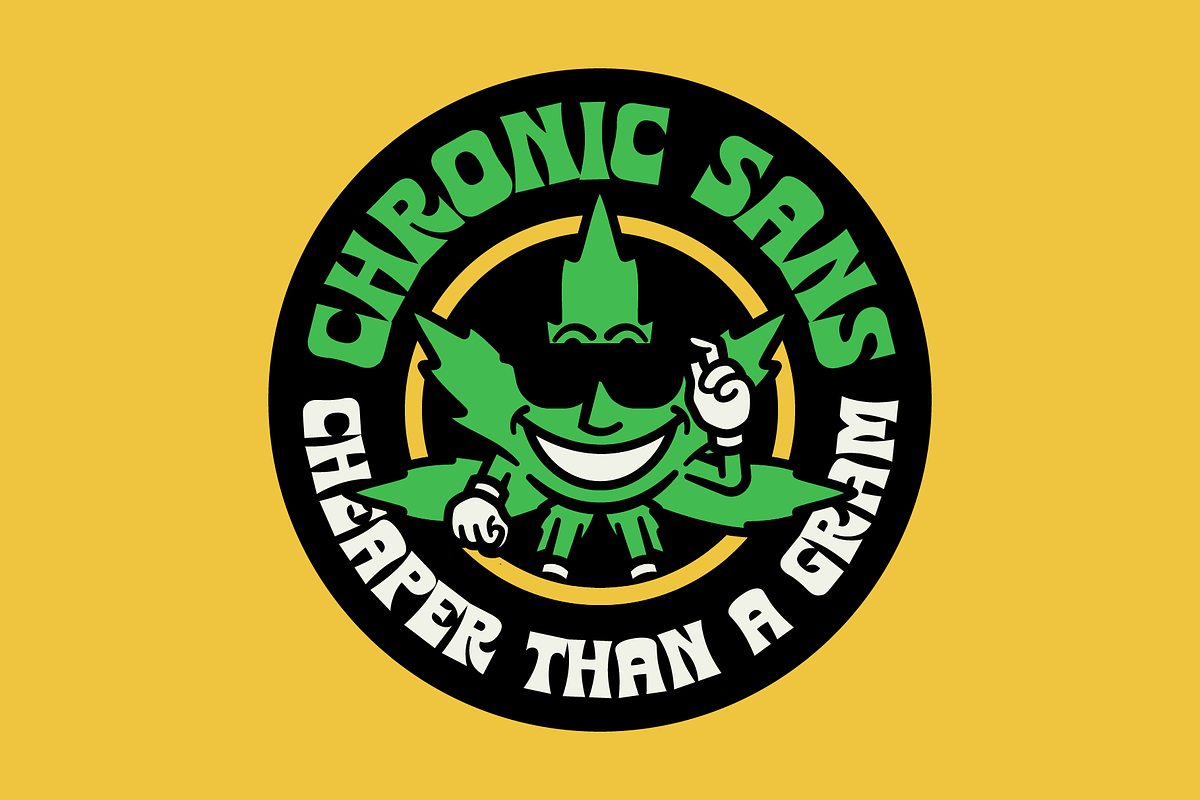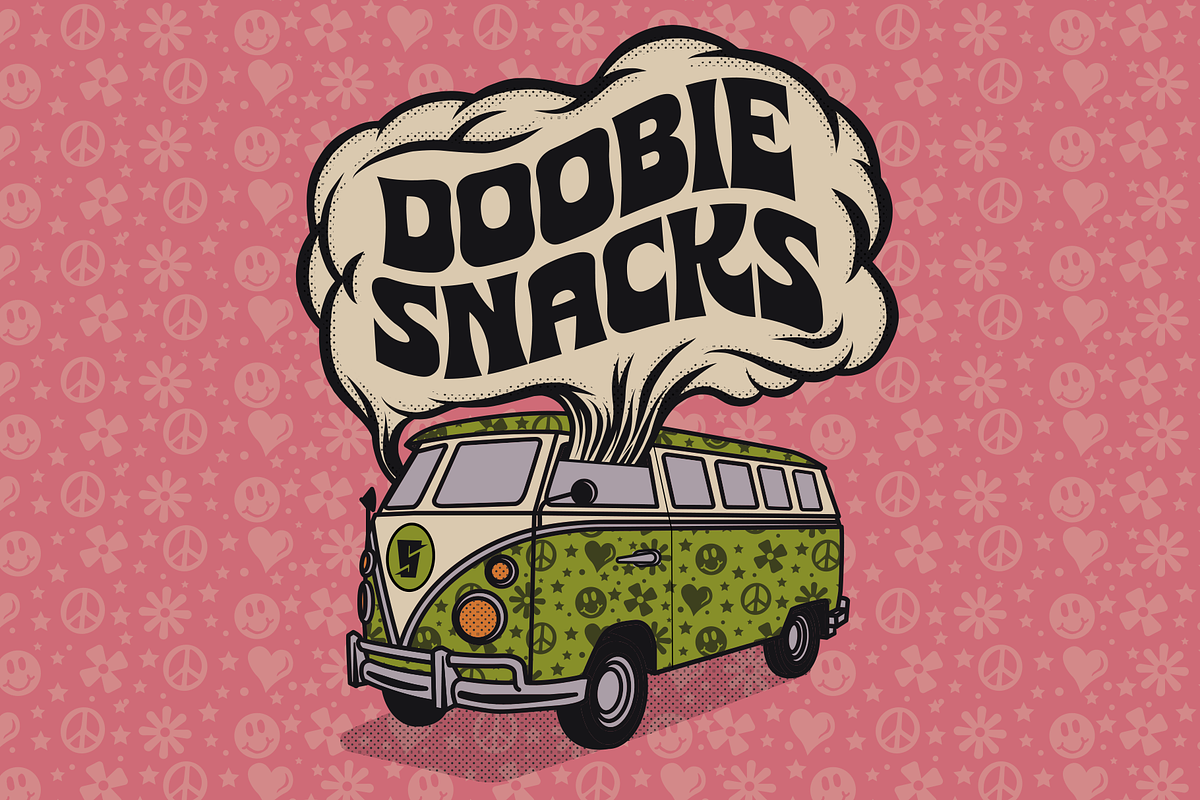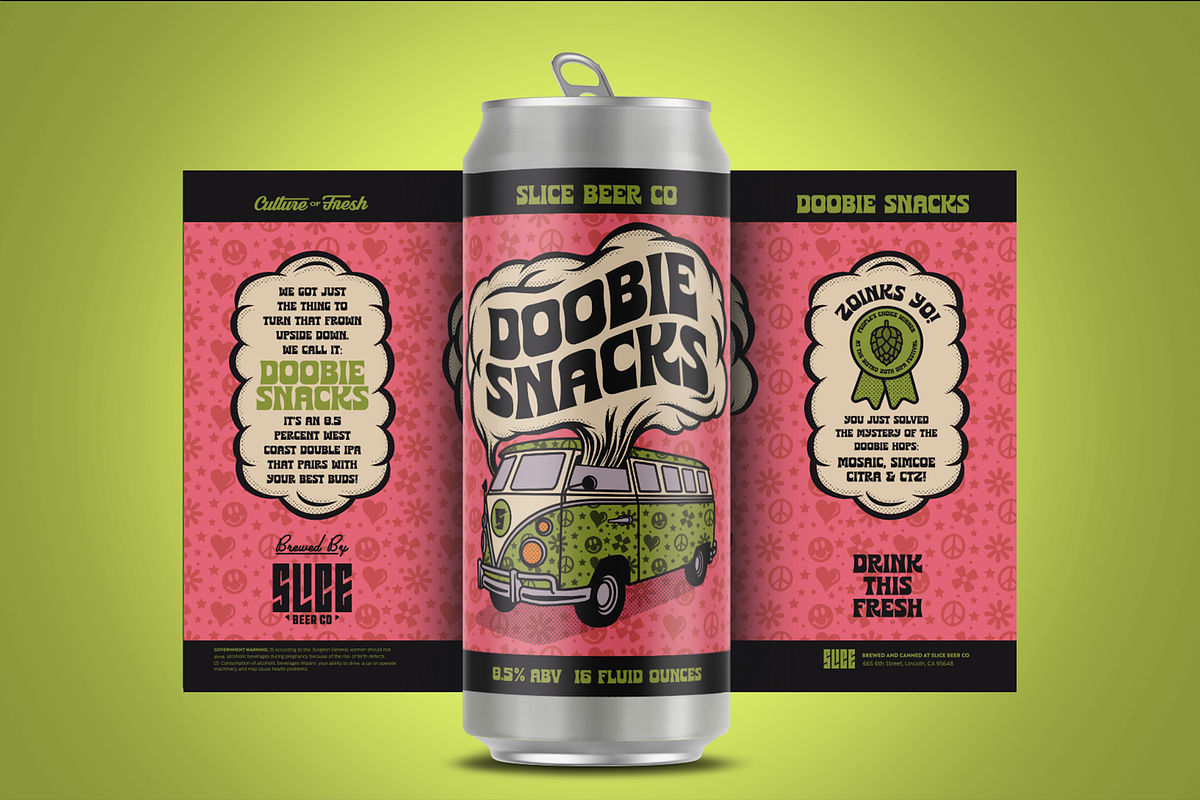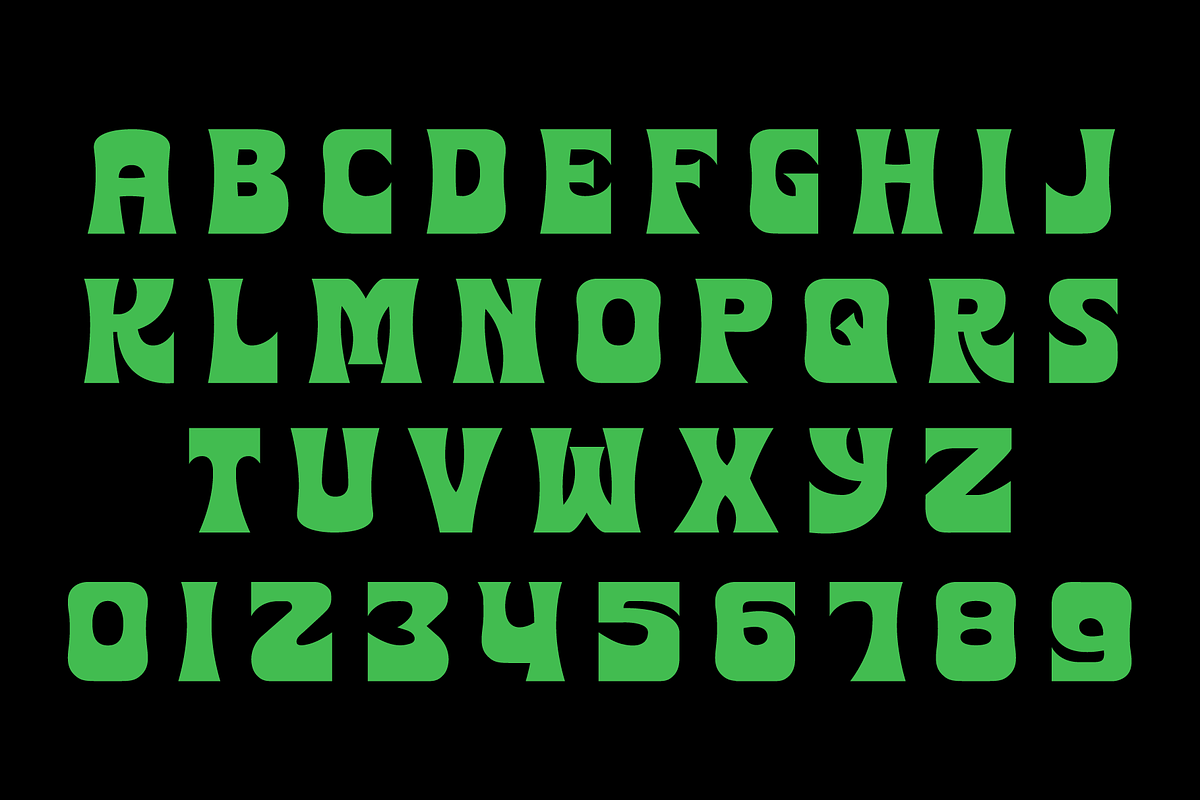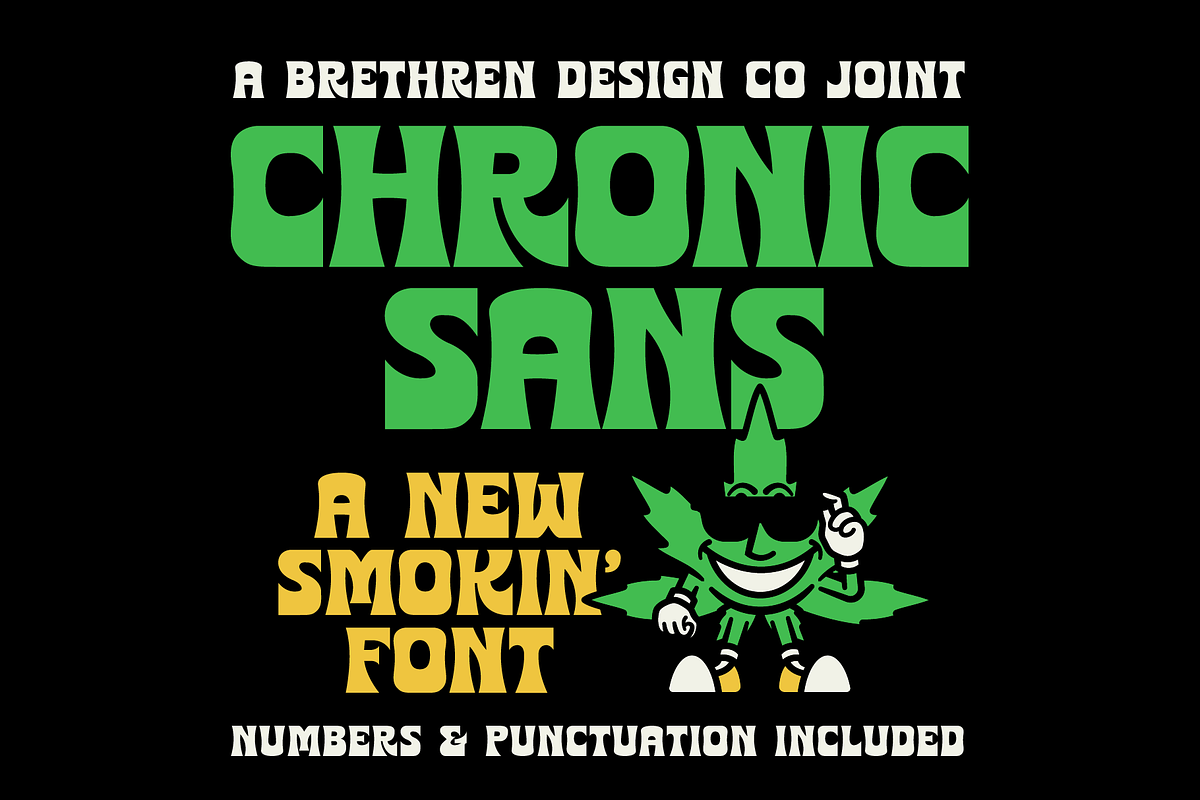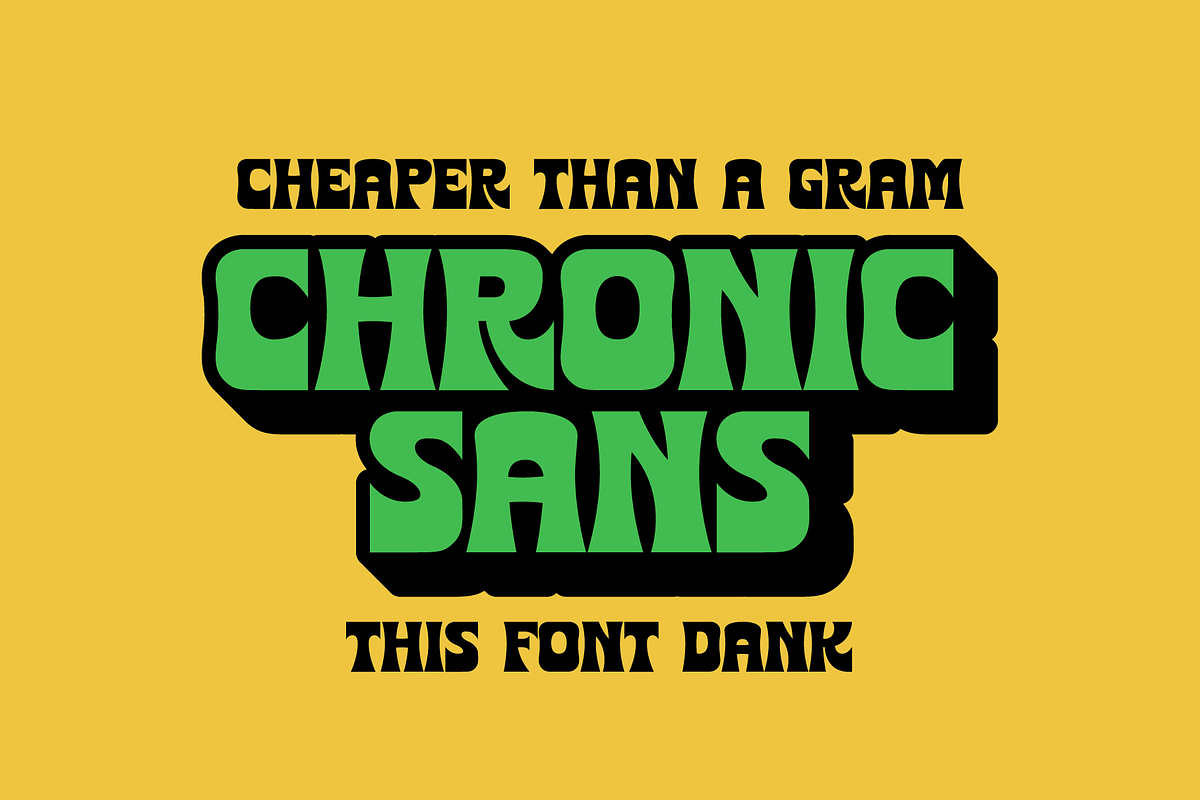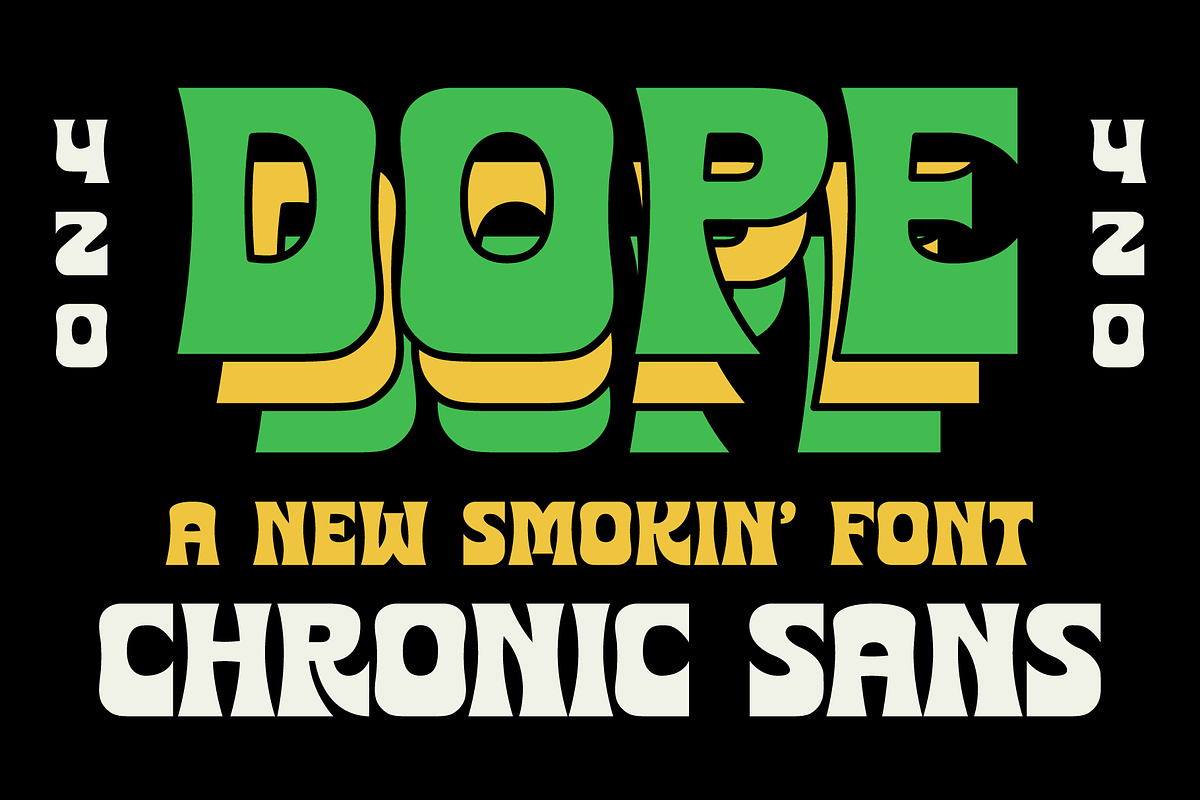
Chronic Sans Display Font
Chronic Sans if a dank ass display font with the right amount of funk.
Why Chronic Sans Display Font is worth a look
Chronic Sans Display Font by Brethrendesignco fits naturally into Branding, posters, packaging, typography.